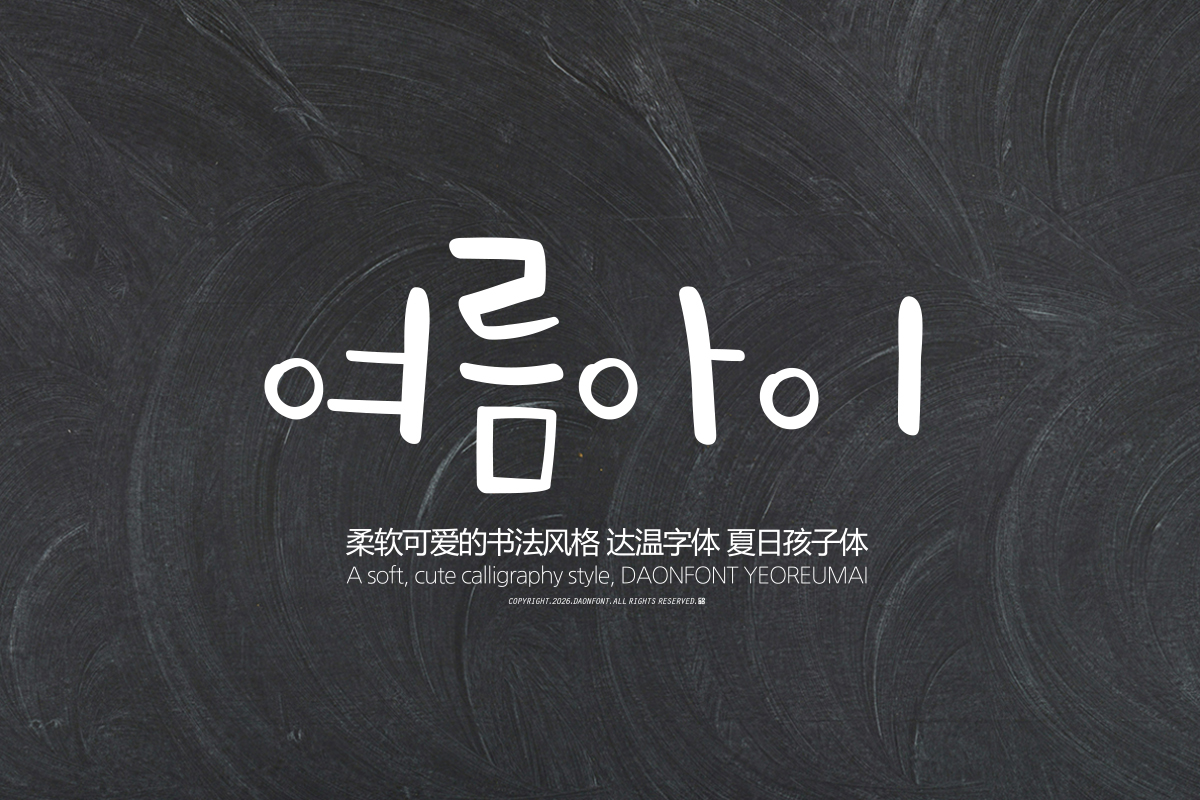
DAON YEOLEUMAI(M)
'YEOLEUMAI' is a calligraphy-style copy font that is a non-square typeface. It features DaonFont's unique alignment method that breaks away from the standard positioning and alignment of initial, medial, and final consonants.